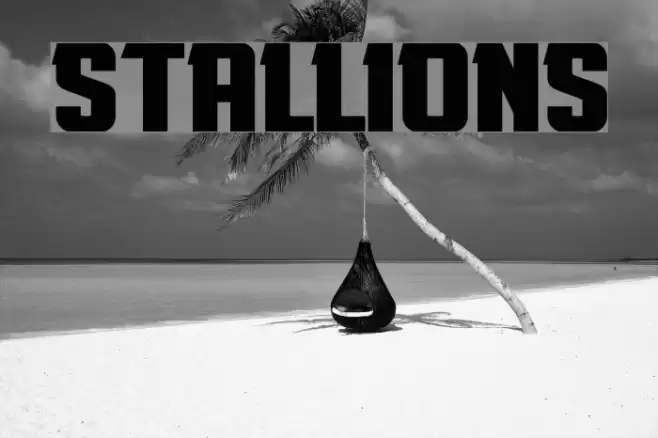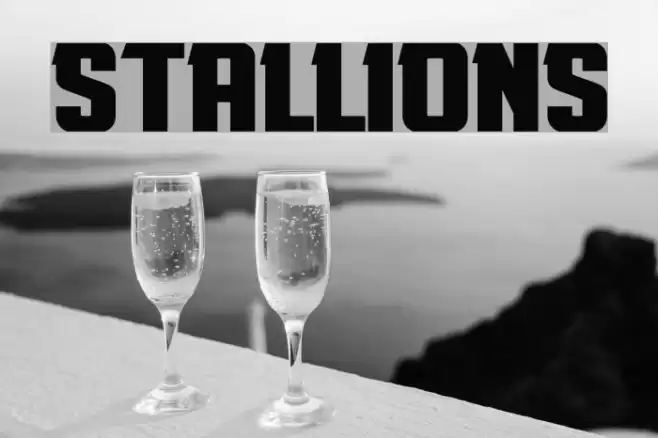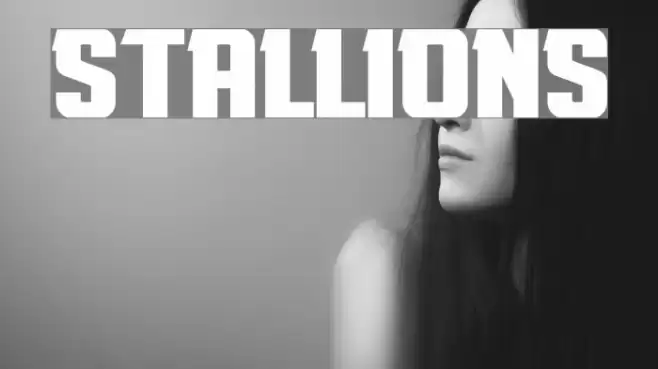
Stallions Font
Stallions Description
This font features a bold and striking design with sharp, angular edges that give it a powerful and dynamic appearance. The uppercase letters are particularly prominent, with a strong presence that commands attention. The characters are tightly spaced, enhancing the boldness and impact of the text. The numbers and special characters maintain the same robust style, ensuring consistency across all elements. This font is well-suited for projects that require a strong visual impact, such as posters, headlines, and branding materials.
A bold, angular font with a strong, dynamic presence from Uncategorized fonts.
- Proposed Projects: Ideal for posters, headlines, branding, and any project needing a strong visual impact.
- Character Spacing: Tight